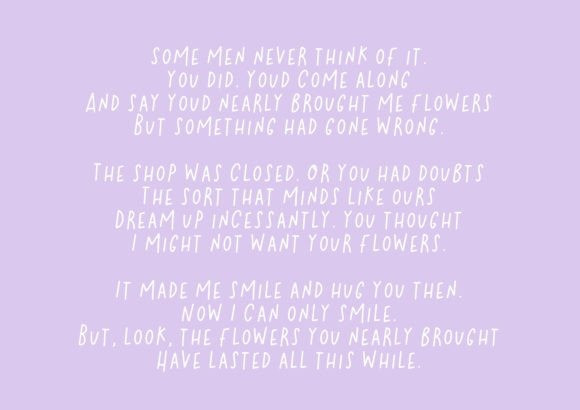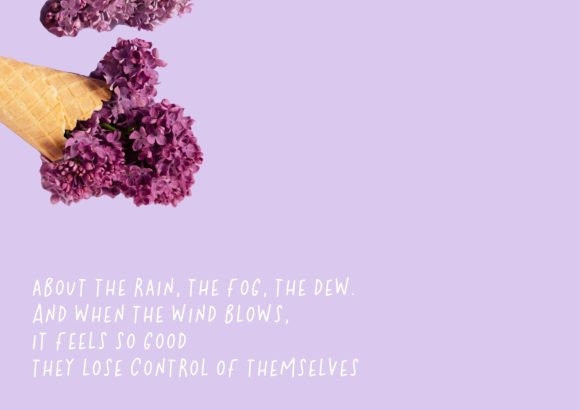
Goodbye Midnight Font
Goodbye Midnight Font is a playful and casual handwritten font. It’s perfect for various whimsical designs, logos, greeting cards, quotes, and much more. It will look outstanding in a wide range of contexts. Goodbye Midnight is a playful and casual handwritten font. It’s perfect for various whimsical designs, logos, greeting cards, quotes, and much more. It will look outstanding in a wide range of contexts.